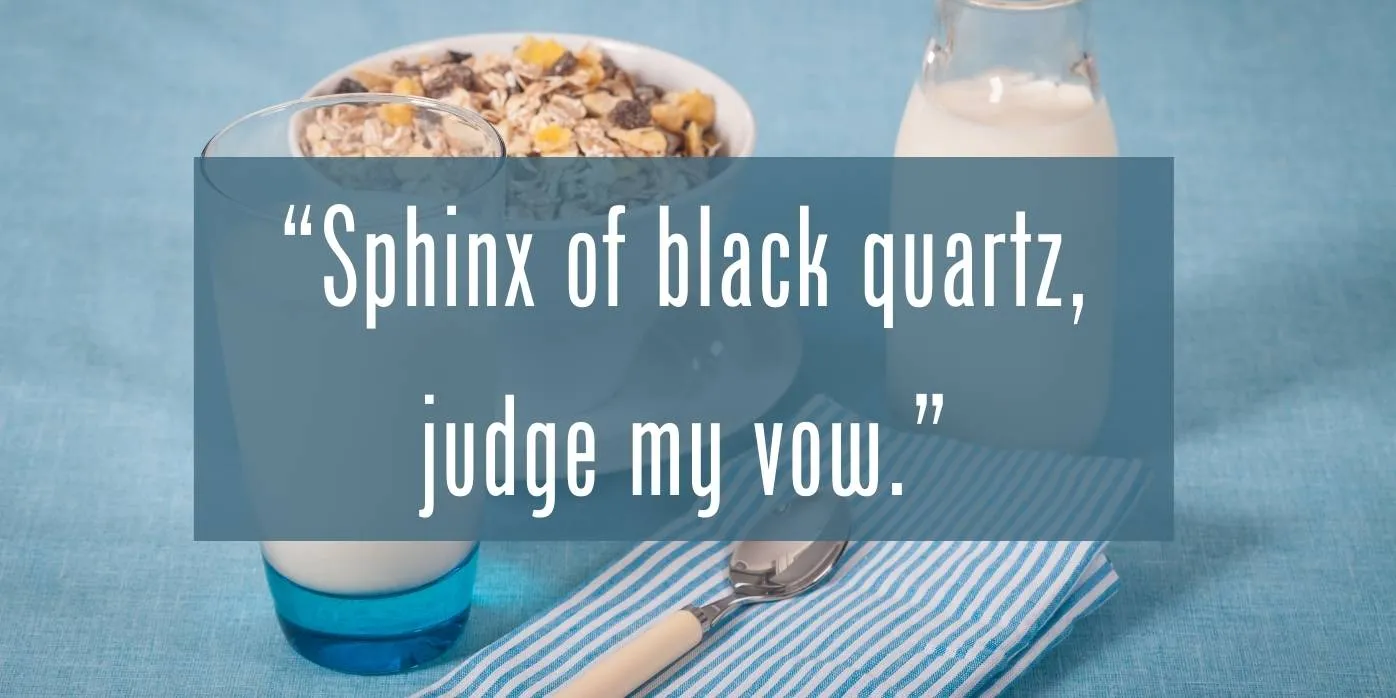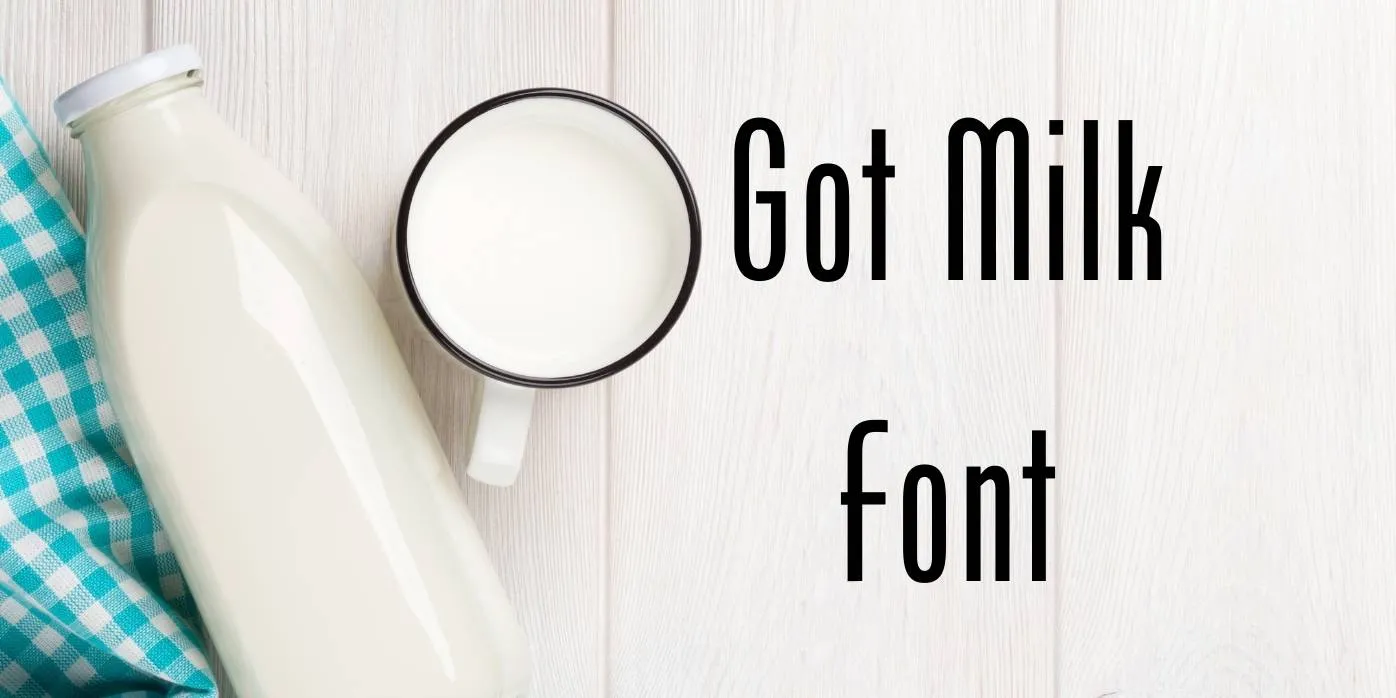
Got Milk font
Got Milk font is designed by well-known designer Morris Fuller Benton. This font family belongs to the Sans-Serif Typeface. It has two main styles which are Got Milk and Semi Condensed. The fonts are widely used in the food, dairy, and beverage industry.
This typeface font has been designed with the aim to be easily readable, even at small sizes. It is available in both TrueType and OpenType formats. This font family includes six fonts in total. The weight of the font ranges from light to heavy.
The width of the font is semi-condensed. It has a contemporary feel to it and can be used for both text and headlines. This tremendous typeface is perfect for Adobe Photoshop, Canva, and MS Word. This typeface is specified by the CSS Family.
This typeface has another similar font that is Highway Gothic Font. This font is a perfect choice for any kind of graphic design work related to the food, dairy, or beverage industry. This typeface has neat and clean features and clear textures. Its special weights and condensed width make it perfect for display uses.